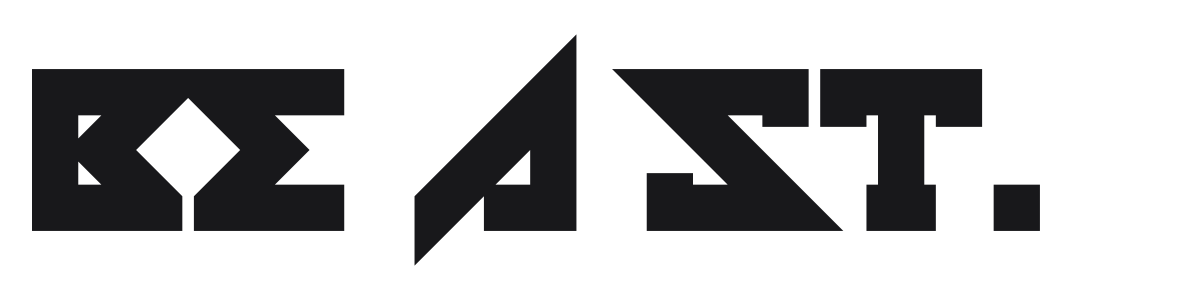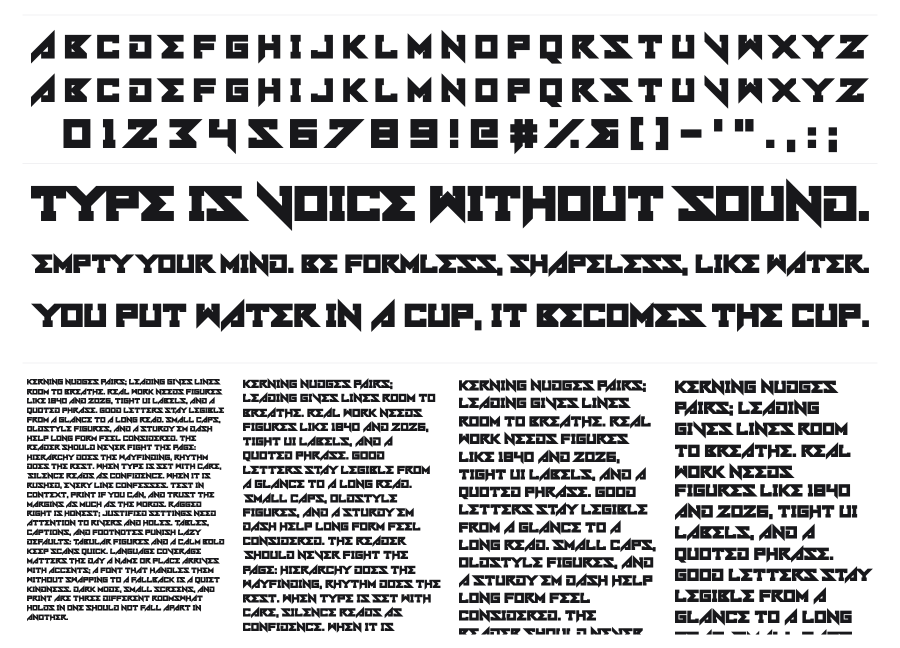
Be A St.
Be A St. is a heavy, angular display font built on the visual language of metal band logos and extreme sports graphics. Thick strokes are cut at sharp diagonal angles with blade-like terminals that give the whole design an aggressive, almost weaponized quality. It works at large sizes where those jagged details can hit hard.